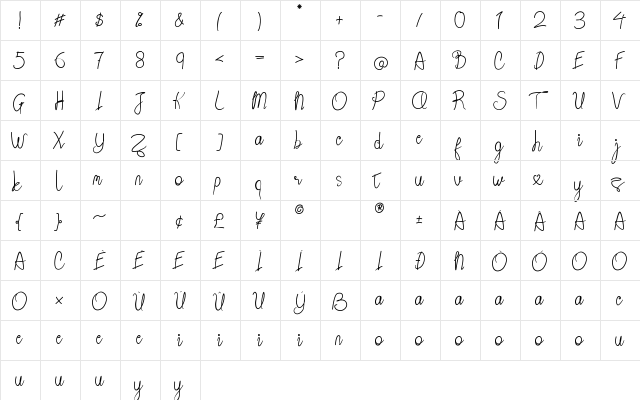
Berather Regular
| Foundry | Letter Deen Co. |
| Designer | Muhammad Wahyudin |
Design Context for Berather Typeface
Berather is a composed and adaptable typeface that performs quietly and consistently across a wide range of design contexts.
Pro Tip: Pair Berather with a font of contrasting weight or personality to build a more expressive typographic hierarchy.